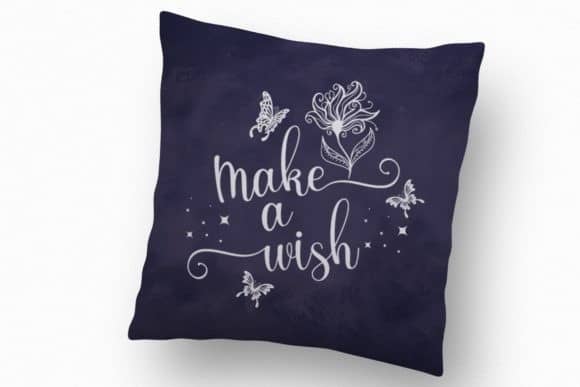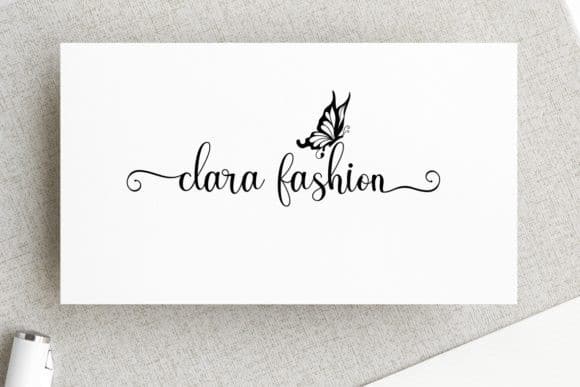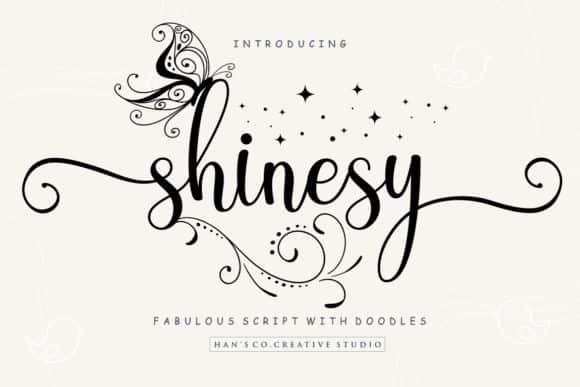
Introducing the new Shinesy Calligraphy Font, for those of you who need a chic, elegant, modern touch for your design needs. It’s designed and shared by HansCo. This font is a magical handwritten font carefully created with a touch of elegance. Whether you’re looking for fonts for Instagram or calligraphy scripts for DIY projects, this font will turn any creative idea into a true piece of art!